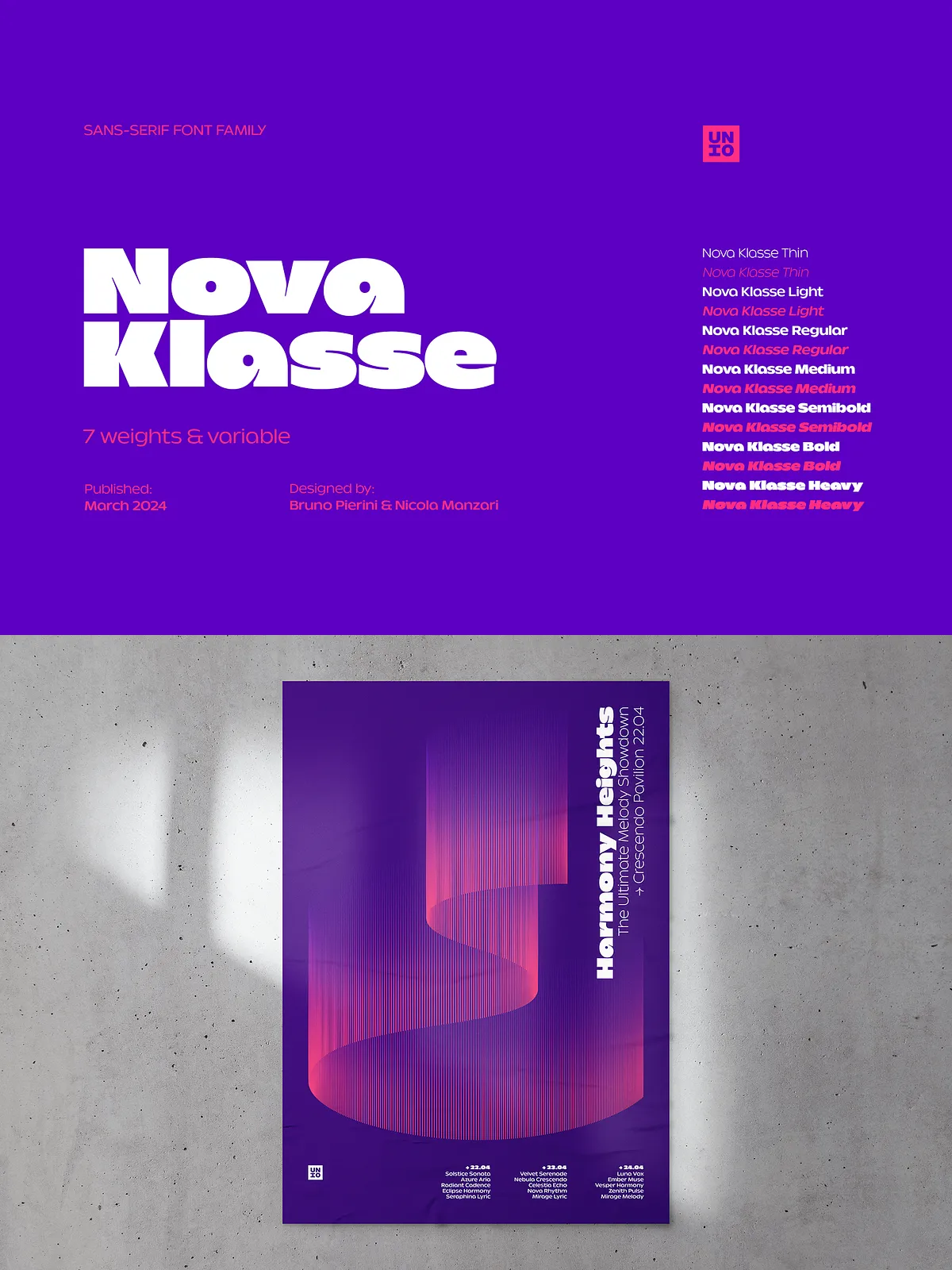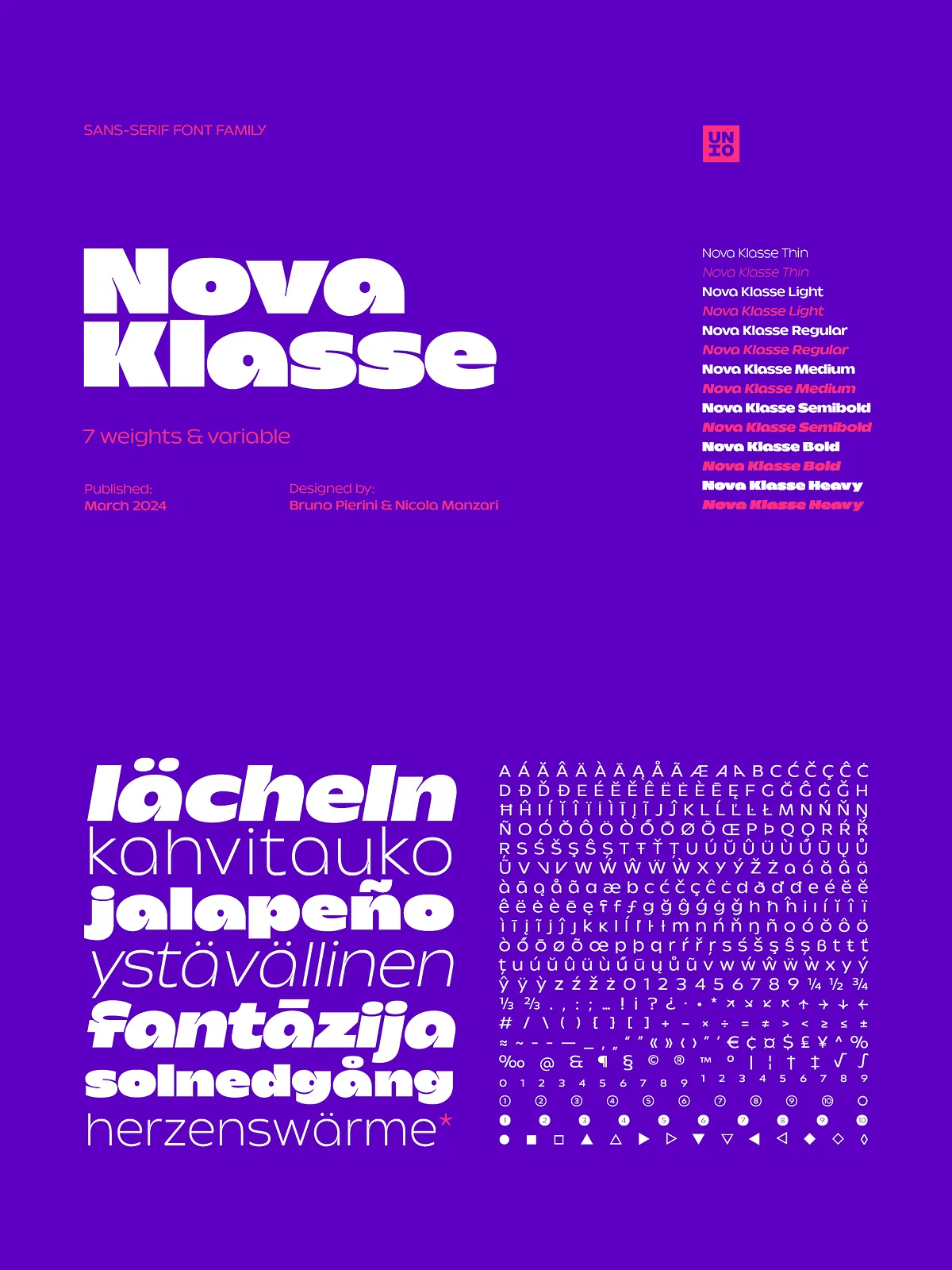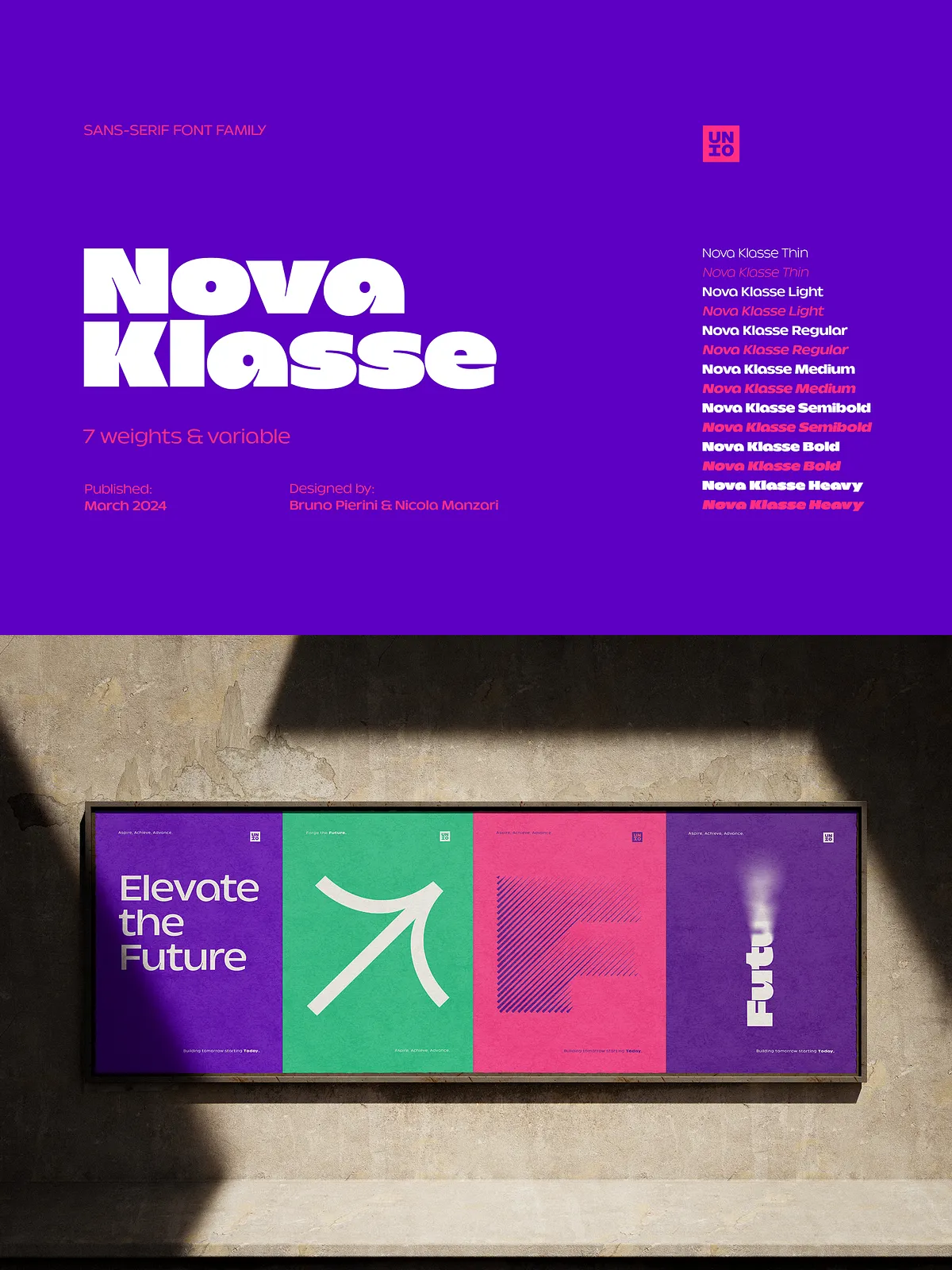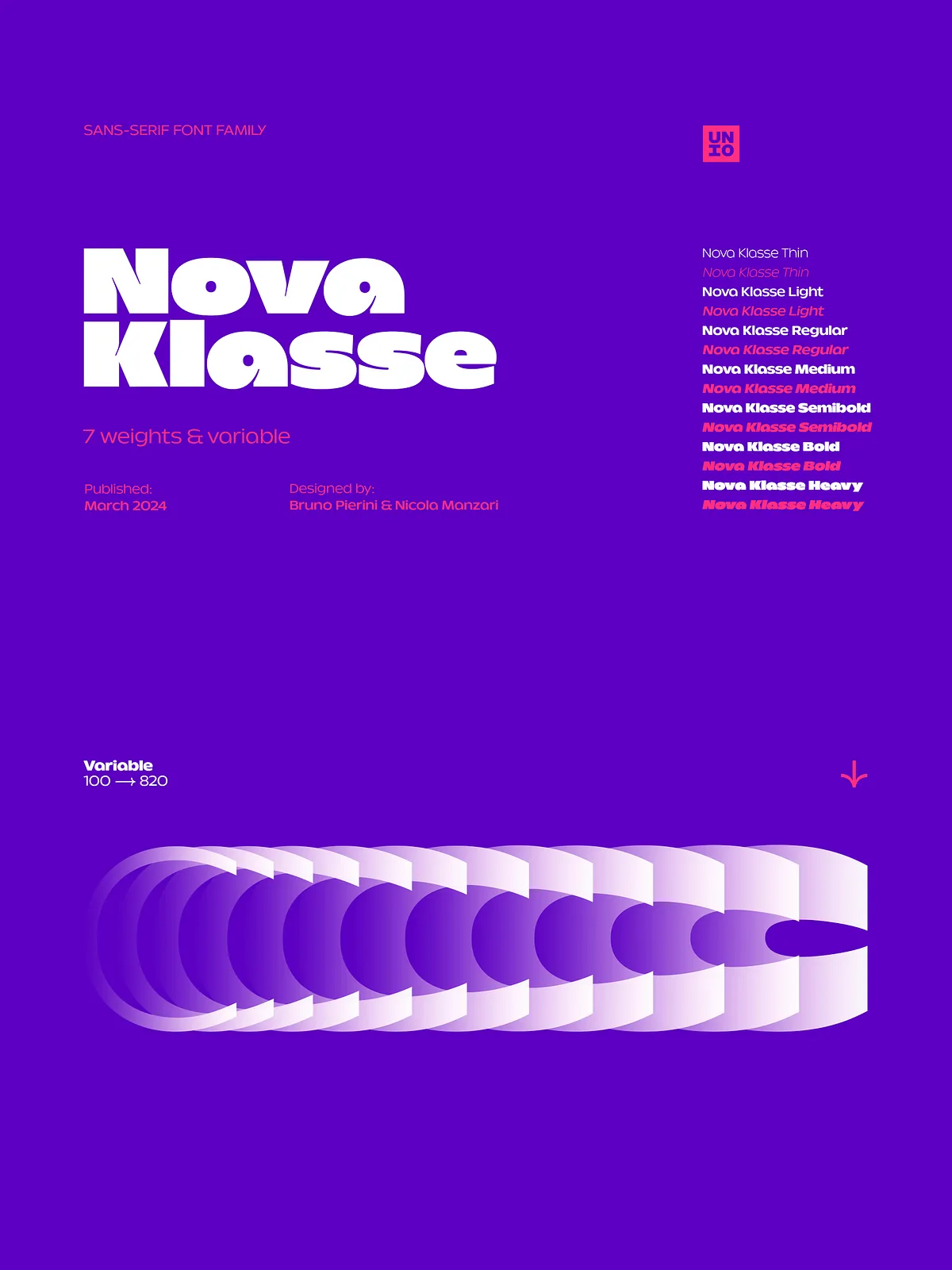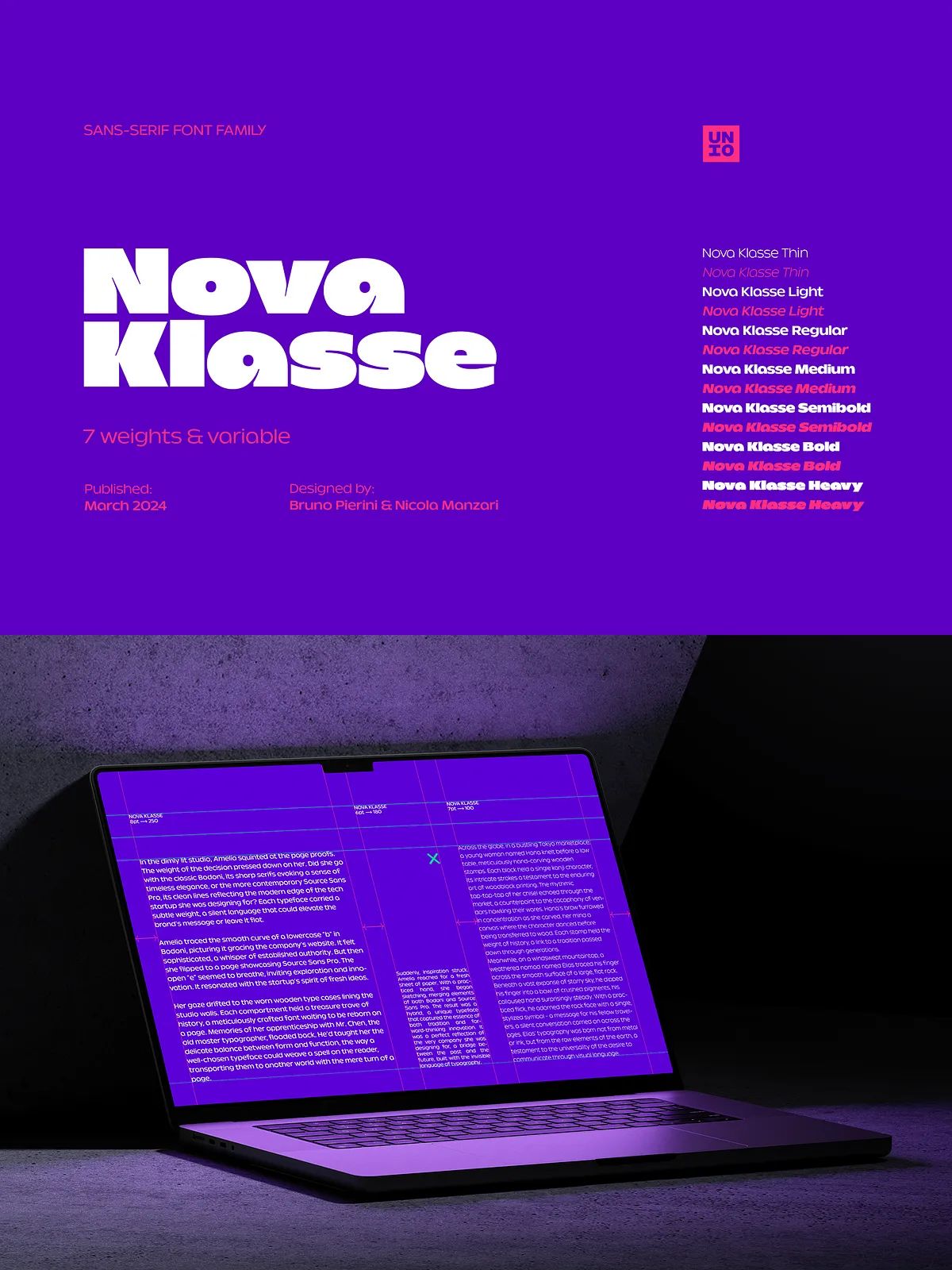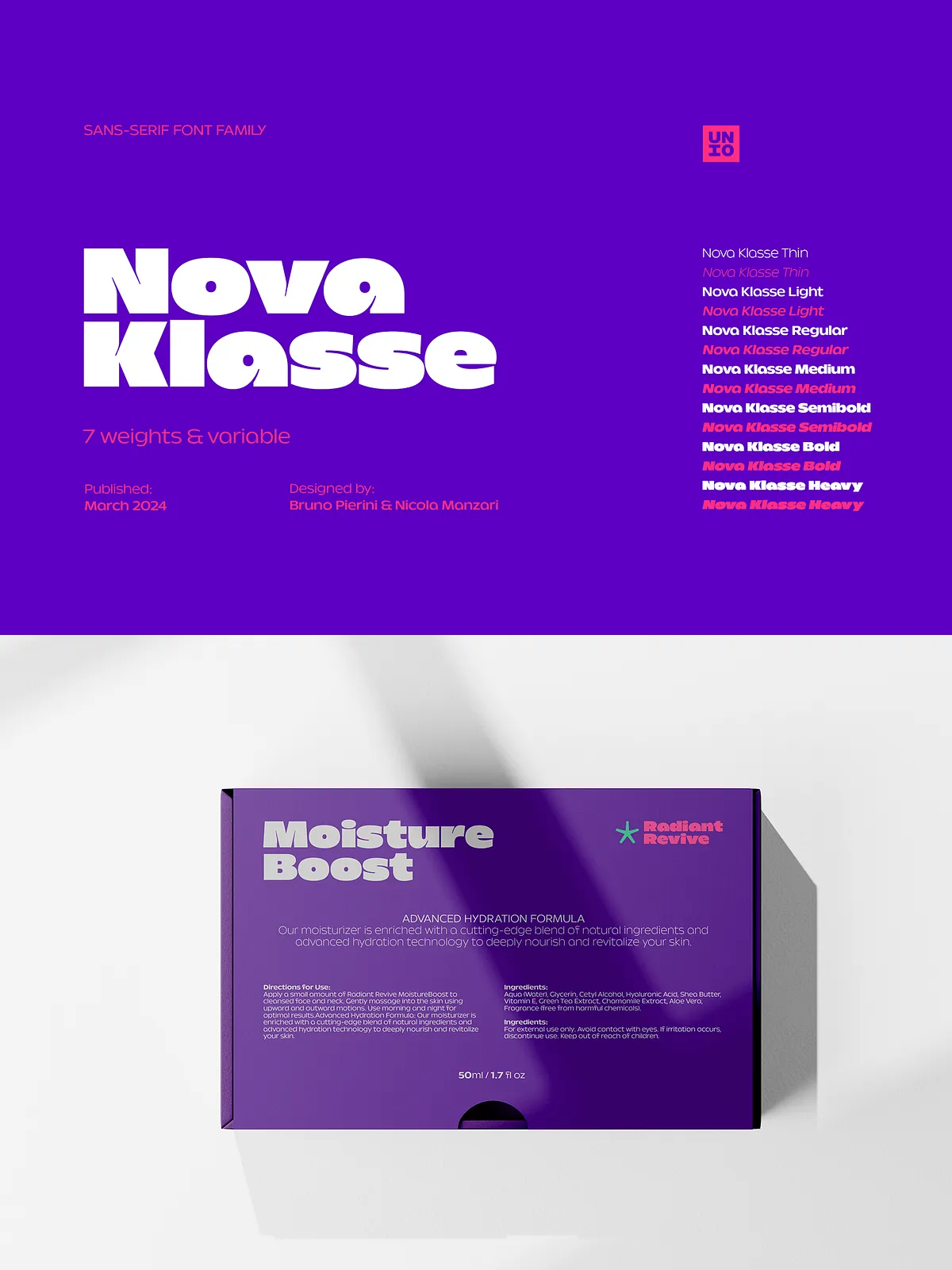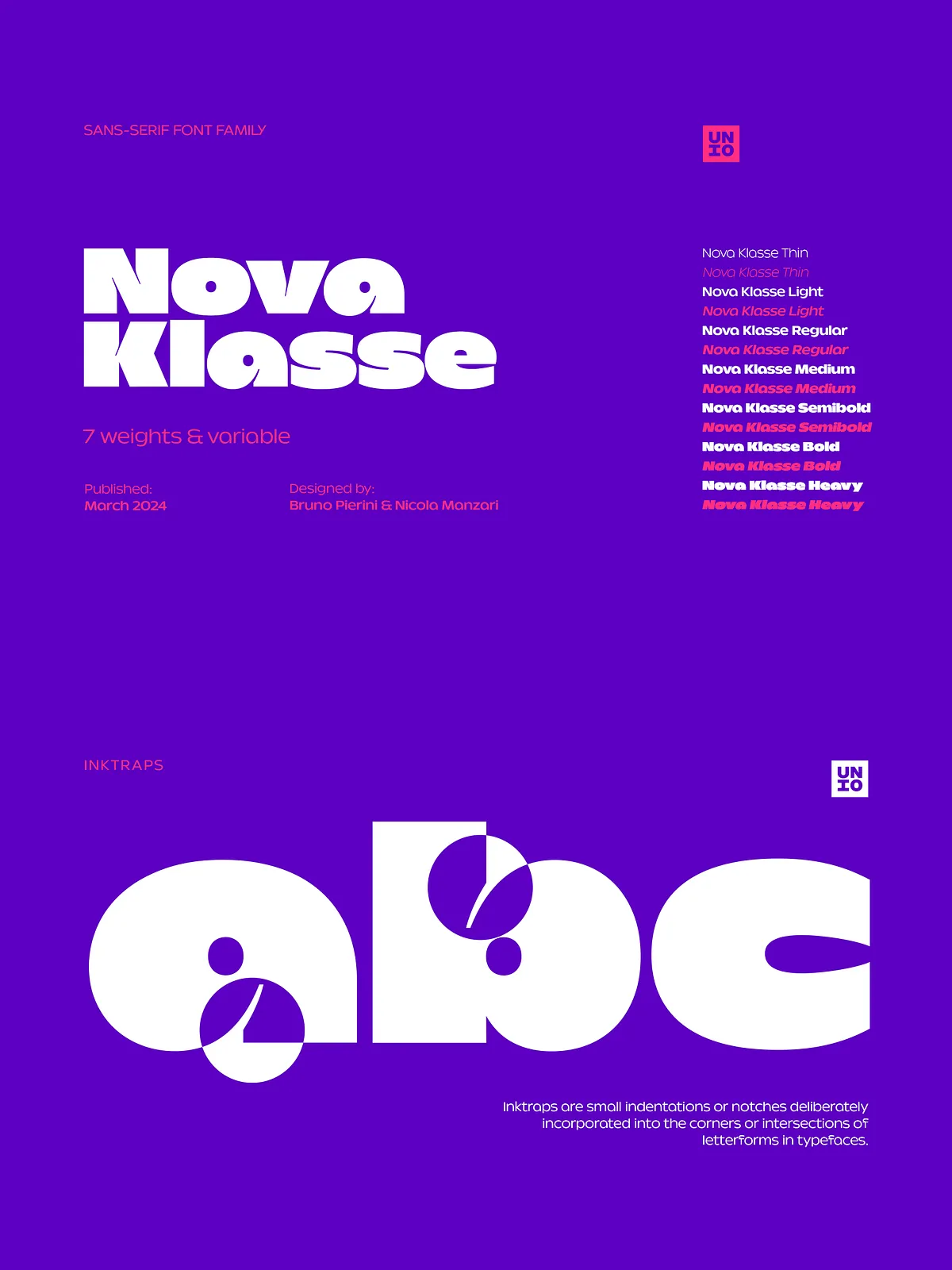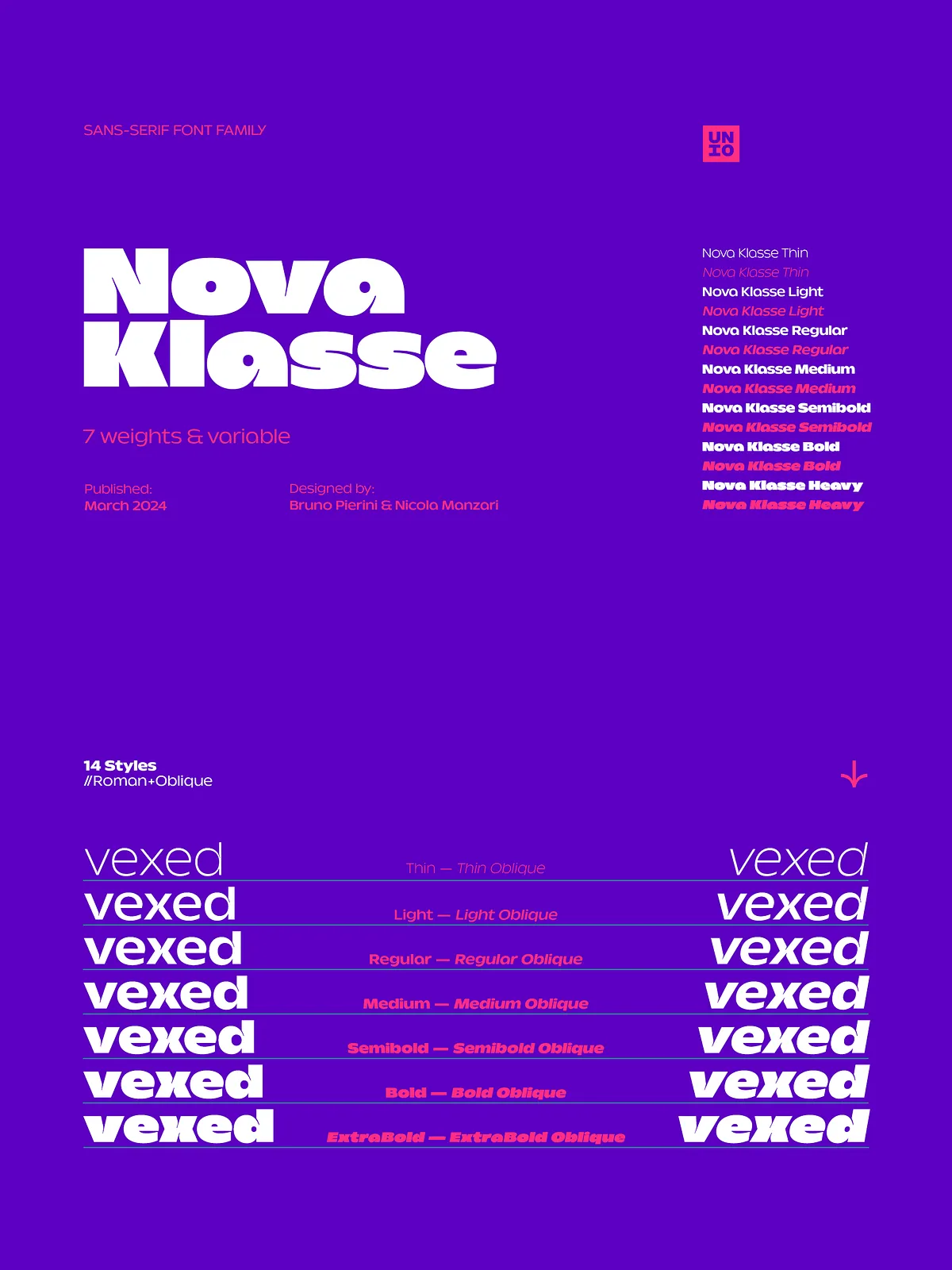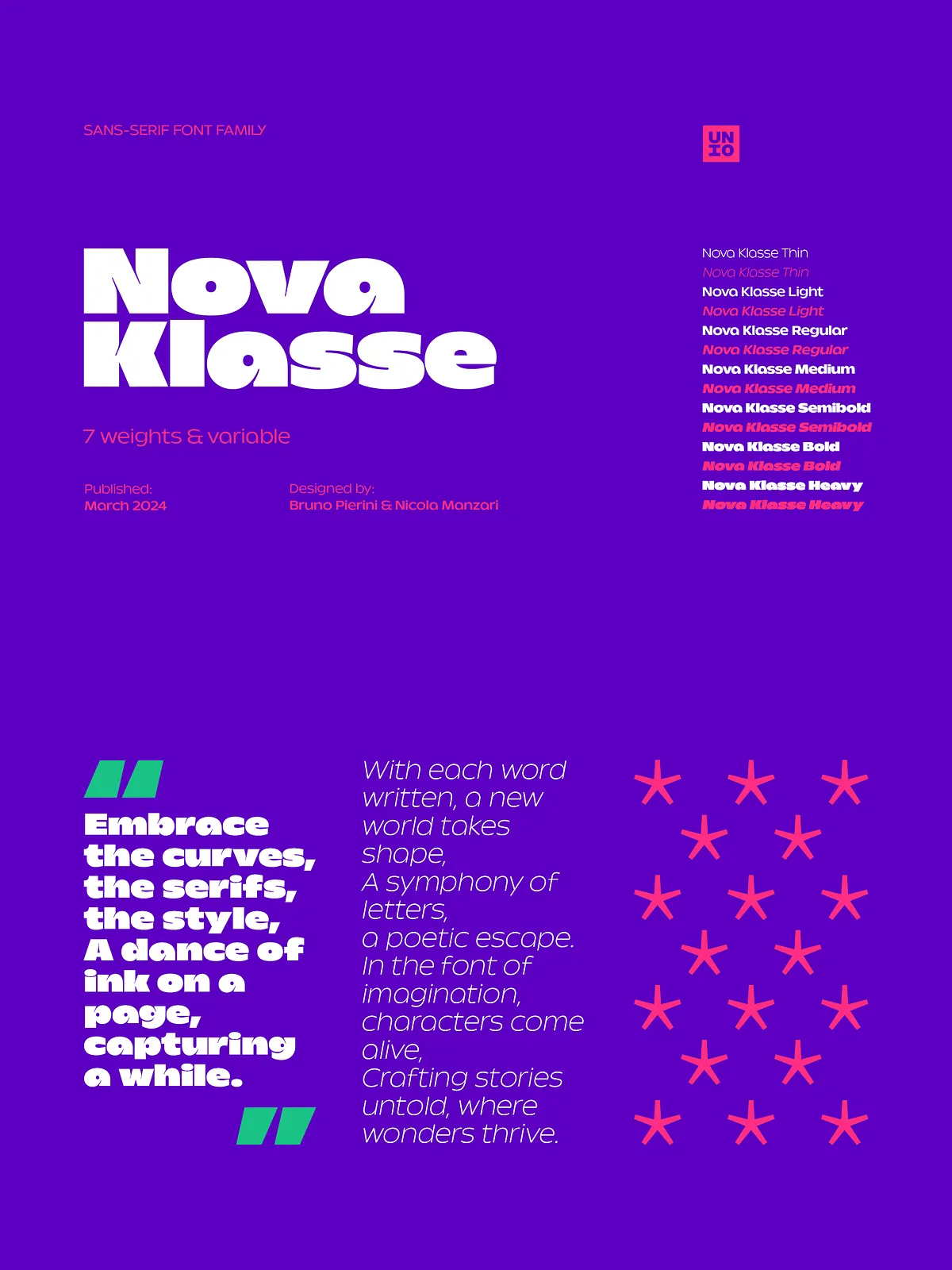
Introducing Nova Klasse — a modern geometric sans serif that ignites visual impact without sacrificing clarity. This dynamic typeface masters the delicate balance between bold experimentation and technical precision. By fusing circular and rectangular forms, Nova Klasse creates a distinctive visual identity that stands out in any design context. Its organic strokes and intentional imperfections inject warmth and character, transforming what could be a cold, rigid typeface into a living, breathing design companion.
Built for Flexibility: The Power of a 2-Axis Variable Font
Nova Klasse isn’t just a font — it’s a design studio in a single file. At its core lies a sophisticated two-axis variable font that gives you instant, real-time control over weight and width. Adjust from delicate Thin to explosive Extrabold, and fine-tune to perfect proportions for your layout. This means no more jumping between preset weights. Instead, you can tailor the font to your exact mood, style, or technical need — all with a single slider.
Endless Customization with Advanced OpenType Features
Go beyond simple weight adjustments. Nova Klasse delivers a rich set of OpenType features, including:
- Superscript and Subscript Numerals — perfect for scientific, academic, and technical content.
- Fractions — clean, professionally formatted for recipes, data, and design layouts.
- Alternates — unique character variations to add subtle design personality to headlines, logos, and branding.
These features ensure your typography isn’t just functional — it’s expressive and refined, down to the smallest detail.
Masterful Design Principles Driving Every Character
Nova Klasse is more than just a look — it’s rooted in deep design philosophy. Each glyph is crafted with an emphasis on form, negative space, and viewer interaction. The result? A typeface that feels balanced, legible, and responsive, even at small sizes or high compression ratios. Its design isn’t meant to dominate — it’s designed to guide the eye, enhance readability, and elevate the message behind the text.
Crafted for Impact: From Headlines to Body Copy
Whether you’re drafting a powerful brand manifesto or laying out a dense editorial piece, Nova Klasse performs flawlessly:
- Headlines & Logos: Use the bold weights to make undeniable statements — from tech startups to fashion labels.
- Web & UI Design: Optimize readability across devices with crisp line spacing and consistent character widths.
- Print & Packaging: Strategic ink traps ensure clean, precise reproduction on paper, cardboard, and fabric — no smudging, no blurring.
Nova Klasse isn’t restricted by medium. It’s built to perform where it matters most.
Dedicated to Versatility and Professional Use
Nova Klasse meets the demands of real-world design. The family includes:
- 7 Master Weights (Thin to Extrabold) with matching oblique styles for dynamic composition.
- Comprehensive Multi-Language Support — covering Central, Eastern, and Western European languages, including accented characters for French, German, Spanish, and Portuguese.
Define the Future of Your Design with Nova Klasse
Stop choosing between form and function. With Nova Klasse, you get both. It’s bold enough to command attention, refined enough to read effortlessly, and flexible enough to evolve with your ideas. Whether you’re designing a brand identity, building a website, or crafting a printed piece, let Nova Klasse be the voice that amplifies your vision.